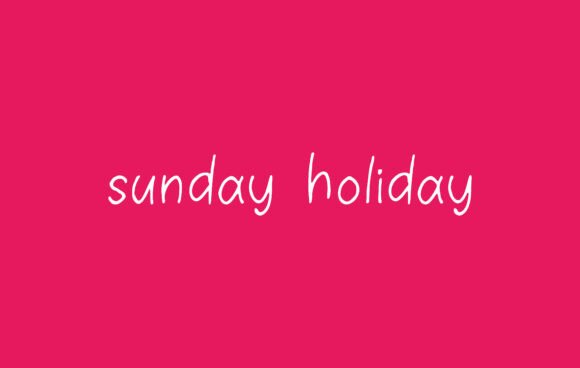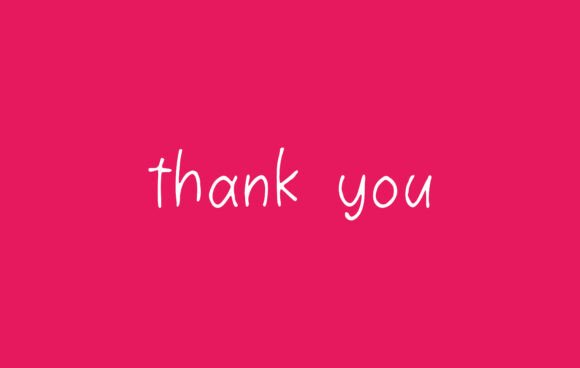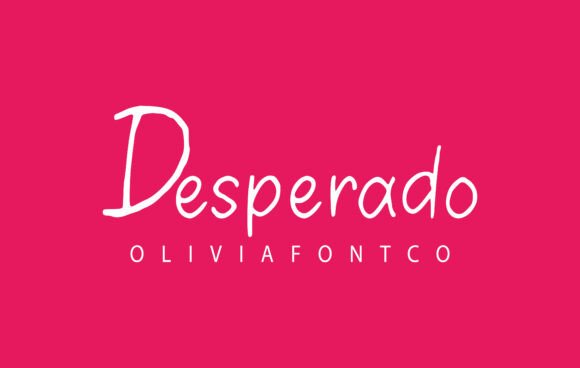
Introducing Desperado Font: The Ultimate Romantic Handwritten Font
Are you a designer or crafter looking for a unique and authentic handwritten font to elevate your creative projects? Look no further than Desperado Font, a stunning romantic font that is sure to capture your heart. With its elegant and legible design, Desperado Font is perfect for a wide range of applications, from magazine headlines and social media graphics to wedding invitations and branding materials.
The Characteristics of Desperado Font
Desperado Font is an expertly designed handwritten font that boasts a romantic touch, making it perfect for projects that require a personal and emotional connection. Its authentic and natural look makes it stand out from other fonts, and its legibility ensures that it can be used for both title and body text. Whether you’re creating a wedding invitation, a social media graphic, or a magazine headline, Desperado Font is sure to make your project shine.
What Makes Desperado Font So Special?
So, what sets Desperado Font apart from other fonts on the market? Here are just a few reasons why designers and crafters are falling in love with this beautiful font:
- Romantic Touch: Desperado Font has a romantic and elegant feel that makes it perfect for projects that require a personal touch.
- Legibility: This font is incredibly legible, making it suitable for use as both title and body text.
- Versatility: Desperado Font can be used for a wide range of projects, from magazine headlines and social media graphics to wedding invitations and branding materials.
- Authentic Design: This font has an authentic and natural look that makes it stand out from other fonts on the market.
Using Desperado Font in Your Designs
Desperado Font is incredibly easy to use and can be incorporated into a wide range of design projects. Here are just a few ideas to get you started:
- Wedding Invitations: Add a touch of romance to your wedding invitations with Desperado Font.
- Social Media Graphics: Use Desperado Font to create eye-catching social media graphics that will help your brand stand out.
- Magazine Headlines: Add a touch of elegance to your magazine headlines with Desperado Font.
- Branding Materials: Use Desperado Font to create consistent and professional branding materials, such as business cards and brochures.
Tips for Getting the Most Out of Desperado Font
To get the most out of Desperado Font, here are a few tips to keep in mind:
- Experiment with Different Sizes: Desperado Font looks great in a variety of sizes, so don’t be afraid to experiment to find the perfect size for your project.
- Pair it with Other Fonts: Desperado Font pairs well with a variety of other fonts, so try pairing it with different fonts to create a unique look.
- Use it Consistently: To create a professional and consistent look, use Desperado Font throughout your design project.
Desperado Font is a stunning romantic handwritten font that is sure to elevate your creative projects to the next level. With its elegant and legible design, Desperado Font is perfect for a wide range of applications, from magazine headlines and social media graphics to wedding invitations and branding materials. Whether you’re a designer or crafter, Desperado Font is a must-have font that is sure to become a true favorite.
- What type of font is Desperado Font? Desperado Font is a handwritten font with a romantic touch.
- Is Desperado Font legible? Yes, Desperado Font is incredibly legible and can be used for both title and body text.
- What can I use Desperado Font for? Desperado Font can be used for a wide range of projects, including magazine headlines, social media graphics, wedding invitations, and branding materials.